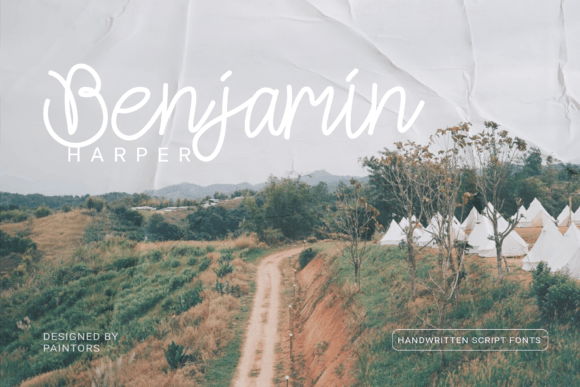
Benjamin Harper: Unraveling the Charm of Handwritten Expression
In the realm of digital artistry, where communication often lacks the intimacy of the handwritten word, Benjamin Harper emerges as a transformative force, an exquisite script font imbued with the warmth of human touch. Its delicate strokes, reminiscent of a gentle caress, draw you into a world of heartfelt emotions, inviting you to express yourself with an authenticity that captivates hearts.
Crafted with meticulous care by the visionary artists at PAINTORS, Benjamin Harper is a symphony of flowing curves and graceful lines, harmoniously orchestrated to evoke a sense of approachability and genuine connection. Each letterform, a labor of love, dances across the digital canvas with a captivating rhythm, mirroring the natural ebb and flow of handwritten prose.
With Benjamin Harper as your creative companion, heartfelt messages take on a new dimension, echoing with the sincerity of a handwritten note. Invitations, meticulously adorned with this enchanting font, promise a glimpse into a world of elegance and warmth, setting the tone for unforgettable gatherings. Personal touches, infused with the charm of Benjamin Harper, radiate authenticity, leaving an indelible mark on the hearts of recipients.
Whether you're a creative professional seeking to infuse your designs with a touch of heartfelt elegance or an individual yearning to add a personal touch to your digital communications, Benjamin Harper stands as your steadfast ally. Its versatility knows no bounds, effortlessly enhancing everything from logos and branding to social media posts and website content.
As you embrace Benjamin Harper, you embark on a journey of creative expression, forging connections that transcend the limitations of the digital realm. Let your words dance across the screen, imbued with the warmth of a handwritten note, captivating your audience with an emotional resonance that lingers long after the last pixel fades.